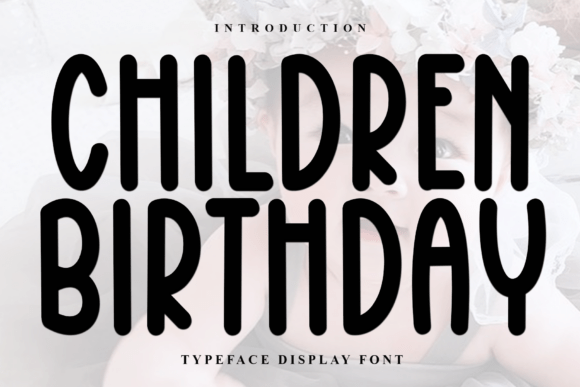
Introducing Children Birthday Font: The Ultimate Festive Typeface for Holiday Designs
The holiday season is upon us, and what better way to get into the spirit than with a festive and merry typeface that captures the essence of this special time of year? Look no further than the Children Birthday Font, a decorative and whimsical font that adds a touch of enchantment to your designs. In this article, we’ll dive into the world of Children Birthday Font, exploring its features, benefits, and uses, as well as provide tips on how to make the most of this beautiful typeface.
What Makes Children Birthday Font So Special?
Children Birthday Font is a unique and captivating typeface that boasts a range of decorative elements and whimsical flair. Its festive design makes it perfect for holiday-themed projects, including greeting cards, gift tags, and social media posts. With its cheerful and nostalgic ambiance, this font is sure to bring a smile to the faces of your audience.
One of the standout features of Children Birthday Font is its PUA (Private Use Area) encoding. This means that you can access all of the amazing glyphs and ligatures with ease, giving you complete creative control over your typography. Whether you’re a designer, artist, or DIY enthusiast, this font is sure to become a favorite in your collection.
The Benefits of Using Children Birthday Font
So why choose Children Birthday Font for your holiday designs? Here are just a few benefits of using this beautiful typeface:
- Instant Holiday Cheer: With its festive design and whimsical flair, Children Birthday Font instantly adds a touch of holiday cheer to your designs.
- Versatility: This font is perfect for a range of holiday-themed projects, from greeting cards and gift tags to social media posts and website headers.
- Easy to Use: With PUA encoding, accessing glyphs and ligatures is a breeze, making it easy to get creative with your typography.
- Nostalgic Ambiance: Children Birthday Font has a cheerful and nostalgic ambiance that’s sure to evoke memories of happy holidays past.
Creative Ways to Use Children Birthday Font
So how can you use Children Birthday Font in your designs? Here are a few ideas to get you started:
- Greeting Cards: Add a personal touch to your holiday greeting cards with this festive font.
- Gift Tags: Make your gifts extra special with custom gift tags featuring Children Birthday Font.
- Social Media Posts: Add some holiday cheer to your social media posts with this fun and festive font.
- Website Headers: Give your website a holiday makeover with a festive header featuring Children Birthday Font.
- Holiday Invitations: Create custom holiday invitations that set the tone for a fun and festive celebration.
Tips for Getting the Most Out of Children Birthday Font
To make the most of Children Birthday Font, here are a few design tips to keep in mind:
- Experiment with Colors: Try pairing Children Birthday Font with a range of festive colors to create a unique and eye-catching design.
- Mix and Match: Combine Children Birthday Font with other fonts and design elements to create a truly unique look.
- Don’t Overdo It: Remember, sometimes less is more. Use Children Birthday Font sparingly to create a bold and eye-catching design.
- Have Fun: Most importantly, have fun with it! Children Birthday Font is all about adding a touch of holiday cheer to your designs, so don’t be afraid to get creative.
In conclusion, Children Birthday Font is a beautiful and festive typeface that’s perfect for adding a touch of holiday cheer to your designs. With its decorative elements, whimsical flair, and PUA encoding, this font is sure to become a favorite in your collection. Whether you’re a designer, artist, or DIY enthusiast, Children Birthday Font is the perfect way to make your holiday designs shine.